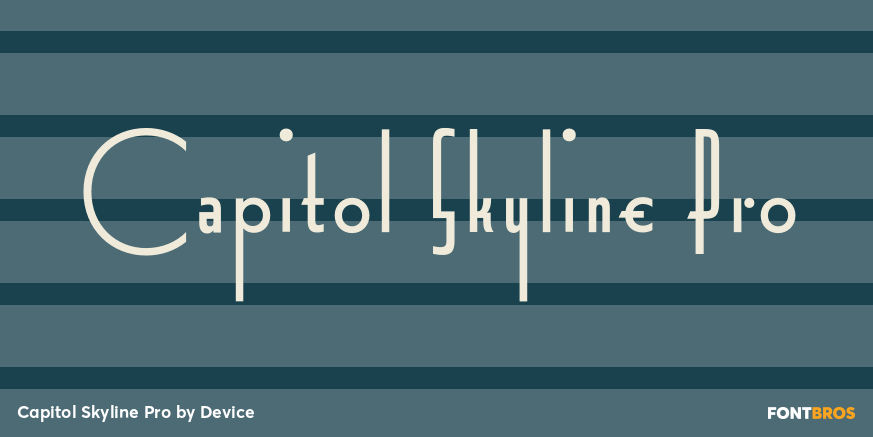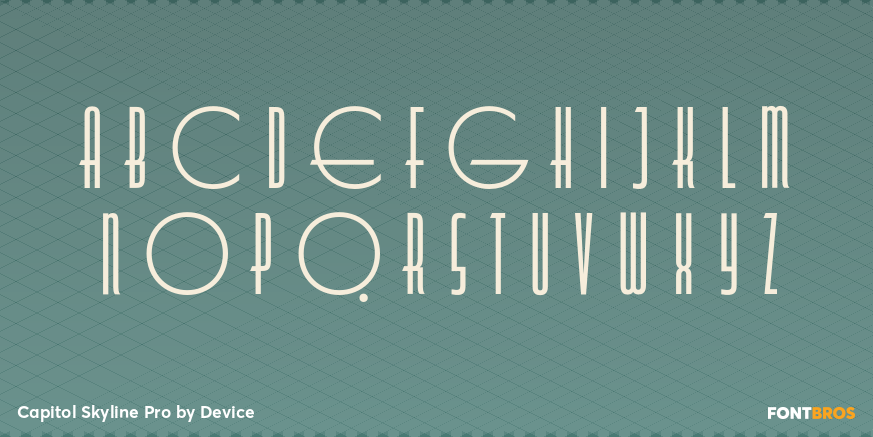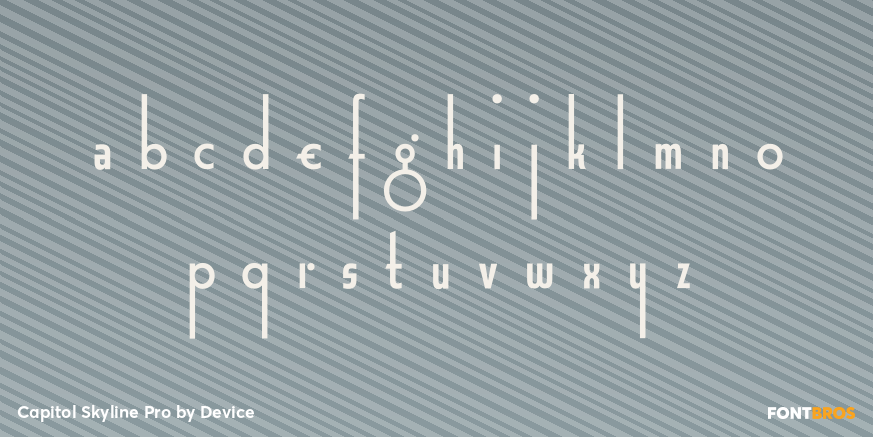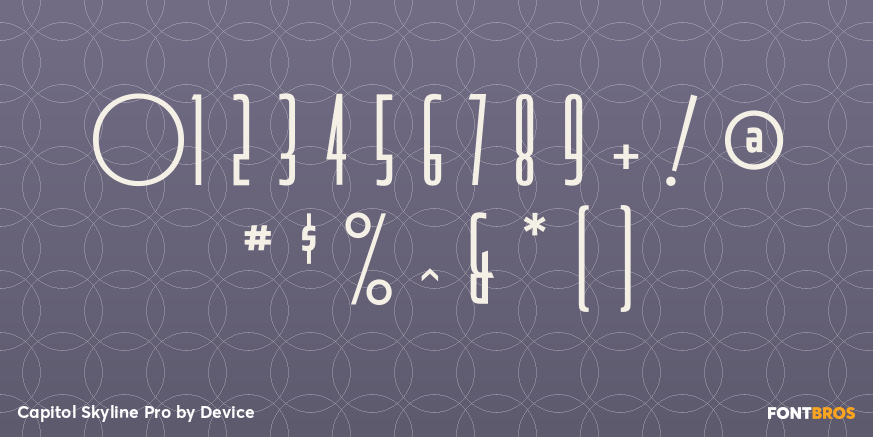
Capitol Skyline Pro
DF Capitol features two faces, DF Capitol Skyline and DF Capitol Capitals (a multi-weight all-caps compliment) that epitomise Streamline Moderne. Strong geometry and large, open counters with heavily condensed verticals and a succession of contextual alternates and discretionary ligatures.
DF Capitol presents a nice companion in two weights. Both contain full support for Eastern and Central European languages.